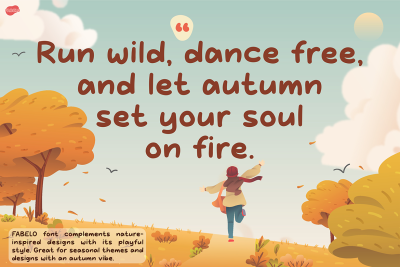
Kids Font FABELO is a lively and cheerful typeface, perfect for adding a playful touch to your designs. With its rounded edges and hand-drawn style, FABELO captures the essence of childhood imagination. The font is simple, easy to read, and full of personality, making it ideal for creative projects that aim to engage children or add a lighthearted tone. Its versatility shines in both print and digital formats, offering clarity and charm in equal measure. Whether crafting storybooks or vibrant posters, FABELO ensures your designs stand out with a joyful, friendly appeal.
FABELOโs design strikes a perfect balance between creativity and functionality. The bold yet soft letterforms ensure readability without losing the playful energy that defines it. This font is more than a toolโitโs an invitation to create designs that bring smiles and spark interest. Its dynamic look is a great match for projects requiring a youthful, upbeat vibe.
Kids Font FABELO is a wonderful choice for educators and parents. Teachers can use this font to create worksheets, bulletin boards, or posters that draw childrenโs attention. Itโs also an excellent option for storybooks or activity books, where its lively style complements the content and makes reading enjoyable. Parents can craft creative invitations for kidsโ birthday parties or personalize family scrapbooks with FABELOโs playful touch.
For businesses, FABELO is perfect for branding and marketing materials targeting young audiences. It works well for toy stores, daycare centers, kidsโ clothing brands, or family-friendly cafes. Logos, brochures, and menus all benefit from FABELOโs approachable and cheerful vibe. Its charm makes it a reliable choice for merchandise designs, such as tote bags or t-shirts, that resonate with both kids and their families.
Content creators and designers working on apps, websites, or social media graphics will also find FABELO to be an excellent asset. The fontโs energetic style is ideal for engaging banners, YouTube thumbnails, or game interfaces aimed at kids. Its readability and charm ensure it appeals to younger audiences without compromising clarity.
Overall, FABELO is a font designed to inspire joy and creativity. Its friendly, playful design makes it a versatile tool for a wide range of projects, ensuring every creation is both functional and fun.